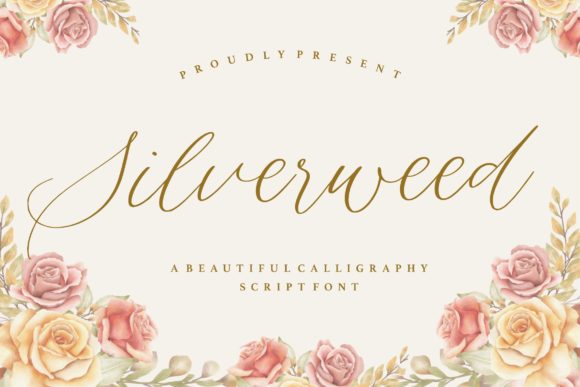
Silverweed Font: Elevating Small Business Branding
Last Tuesday, I sat at my kitchen table surrounded by half-printed candle labels and a growing sense of frustration. As a small business owner in the handmade home fragrance space, I know that packaging is often the first physical touchpoint a customer has with my brand. My previous typography choice felt stiff and generic, lacking the organic warmth that defines my soy wax blends and botanical scents. I needed a typeface that felt personal yet professional, something that whispered "handcrafted luxury" rather than shouting "mass-produced." That is when I decided to test Silverweed on my upcoming seasonal collection. Silverweed is a delicate, elegant and flowing handwritten font that immediately transformed the mood of my workspace. It has beautiful and well balanced characters and as a result, it matches a wide pool of designs, making it an ideal candidate for brands trying to bridge the gap between artisanal charm and retail readiness.
Silverweed for Product Packaging and Label Design
When evaluating Script Handwritten fonts for physical goods, legibility on curved surfaces and textured papers is paramount. Fonts in this category can sometimes sacrifice readability for flair, but my experience applying Silverweed to 3-inch round jar labels was surprisingly smooth. The flow of the letterforms maintains a consistent baseline, which is crucial when printing on adhesive vinyl or kraft paper where alignment errors are unforgiving. I used Silverweed specifically for the scent names—"Wild Fig & Cedar" and "Lavender Mist"—while keeping the ingredient lists in a clean, minimalist sans serif. This contrast allowed the decorative font to act as a visual anchor without overwhelming the necessary regulatory text. For fellow makers and boutique owners, this balance is vital; you want your product to look artistic on a shelf but remain functional and compliant. The elegance of Silverweed adds a perceived value to the item, signaling to customers that care was taken in every detail of the presentation.
Using Silverweed for Social Media Graphics and Digital Ads
Transitioning from print to digital, I found that Silverweed performs exceptionally well in Instagram templates and Pinterest pins where visual hierarchy dictates engagement. In the crowded feed of lifestyle and beauty content, display fonts need to be instantly recognizable even at thumbnail size. Because Silverweed possesses such fluid connectivity, it creates distinct word shapes that are easy to scan quickly on mobile screens. I utilized it for headline overlays on Reels covers and promotional graphics for a flash sale. Unlike blockier script fonts that can feel heavy against photographic backgrounds, the airy nature of Silverweed allows product photography to breathe through the text. This is particularly useful for online sellers who rely on aesthetic cohesion across their grid. When pairing this creative font with modern typography for body copy, ensure you leave ample negative space around the script elements. This prevents the design from feeling cluttered and ensures the message remains accessible to all users, including those with visual impairments who may struggle with overly ornate lettering.
Silverweed for Wedding Stationery and Elegant Event Branding
Beyond product sales, Silverweed serves as a premium font option for service-based creatives like stationers, florists, and event planners working within the wedding niche. The romantic, sweeping ligatures inherent in this typeface evoke a sense of timeless sophistication that clients actively seek for invitations and signage. During a recent branding refresh for a local floral studio, we tested Silverweed against three other popular script options for their portfolio headers and client welcome packets. It won out because the characters feel intentional rather than chaotic. For wedding menus, place cards, and welcome signs, this level of refinement communicates trust and high-end service. However, a word of advice for commercial designers: always check the included alternates and swashes before finalizing layouts. Silverweed offers stylistic variations that allow you to customize the beginning and ending strokes of words, preventing repetitive patterns in long guest lists or repeated phrases. This flexibility is what separates a template-looking design from a bespoke, custom-tailored brand identity.
Font Pairing Strategies with Silverweed for Brand Consistency
A common pitfall for non-designers is selecting a beautiful script but failing to pair it with a supporting typeface that grounds the composition. Silverweed shines brightest when treated as the star performer, supported by a reliable ensemble cast. For my own brand identity system, I paired it with a geometric sans serif for website navigation and price points. The sharpness of the sans serif provides a necessary counterpoint to the soft curves of the script, enhancing overall readability and creating a polished, editorial look. If your business leans more traditional or heritage-focused, consider pairing Silverweed with a classic serif font. The combination of old-world structure and fluid handwriting suggests established quality and artisanal roots. Avoid pairing Silverweed with other highly decorative or distressed fonts, as this competes for attention and dilutes the impact. Remember that consistency builds recognition; use Silverweed strictly for headlines, logos, and accent text across all platforms to create a cohesive visual language that customers will eventually associate solely with your business.
Ultimately, typography is one of the most cost-effective ways to upgrade a small business’s visual presence. My journey with Silverweed moved my candle labels from looking homemade to looking handcrafted—a subtle but profitable distinction. Whether you are refreshing a café menu, designing thank-you cards for an Etsy shop, or building a coaching brand from scratch, this typeface offers the versatility and elegance needed to make a lasting impression. It respects the reader while delighting the eye, striking that elusive balance between personality and professionalism. Add it to your most creative ideas and watch how a single typographic shift can elevate the entire perception of your work. Just remember to treat it with intention, pair it wisely, and always prioritize clarity alongside beauty.